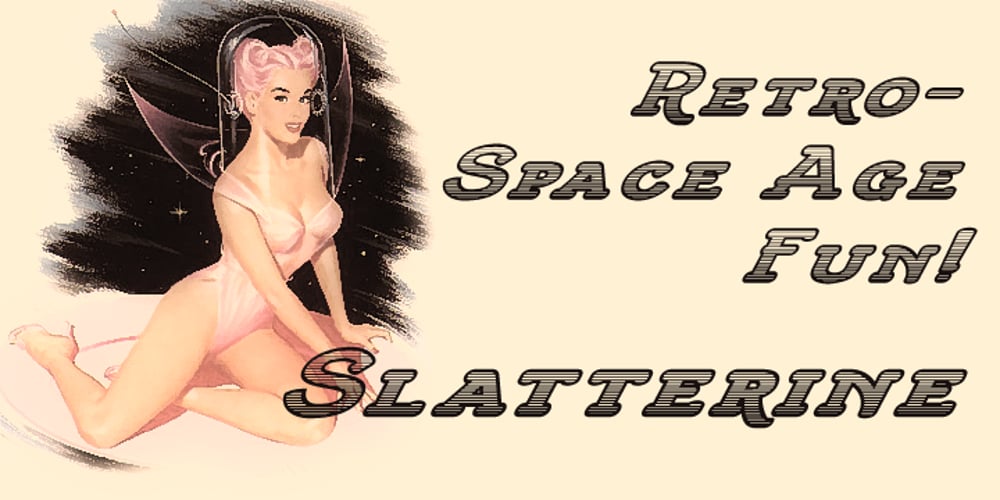
Slatterine Font Family was designed by Paul James Lloyd and published by Greater Albion Typefounders. Slatterine contains 3 styles and family package options. Slatterine is a retro-futuristic family, inspired by the second streamline era of the 1950s It’s ideal for any design work that needs to suggest bygone visions of the future, or to have a retro-space-age effect. Slatterine’s horizontally shaded glyphs give a strong sense of motion, whether coupled with the regular form’s sharply leaning oblique angle, the perpendicular form, or the reverse leaning ‘Lefty’.